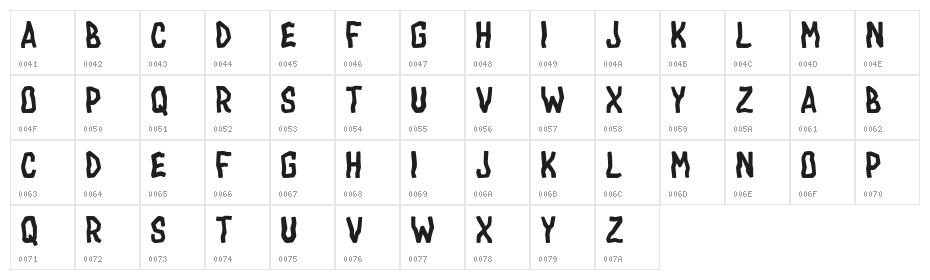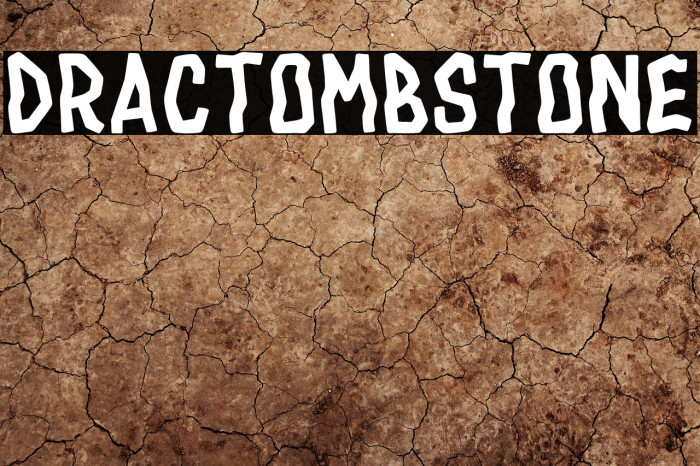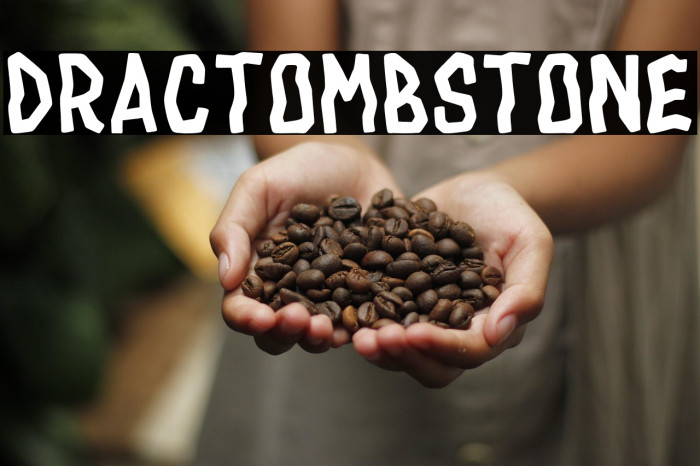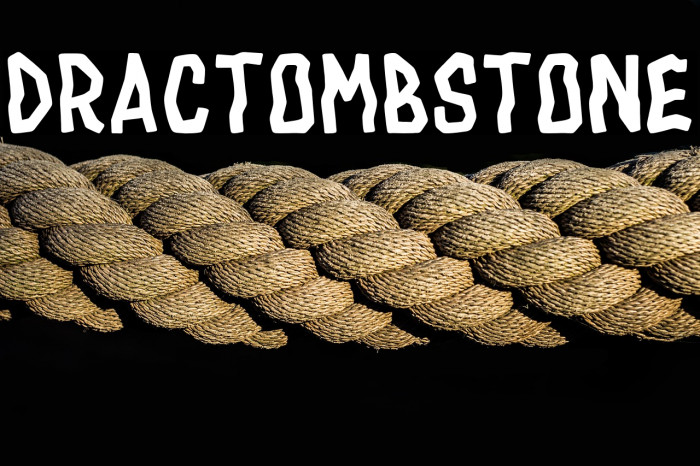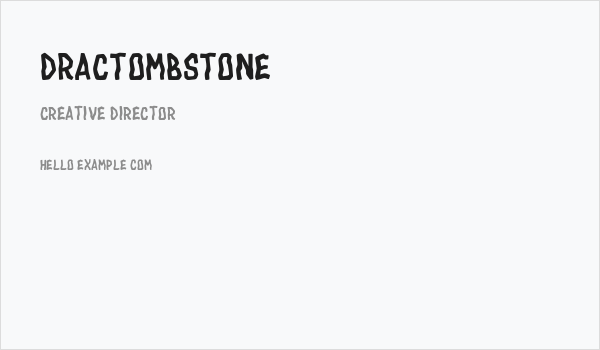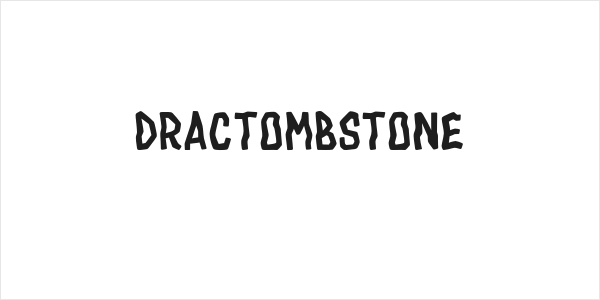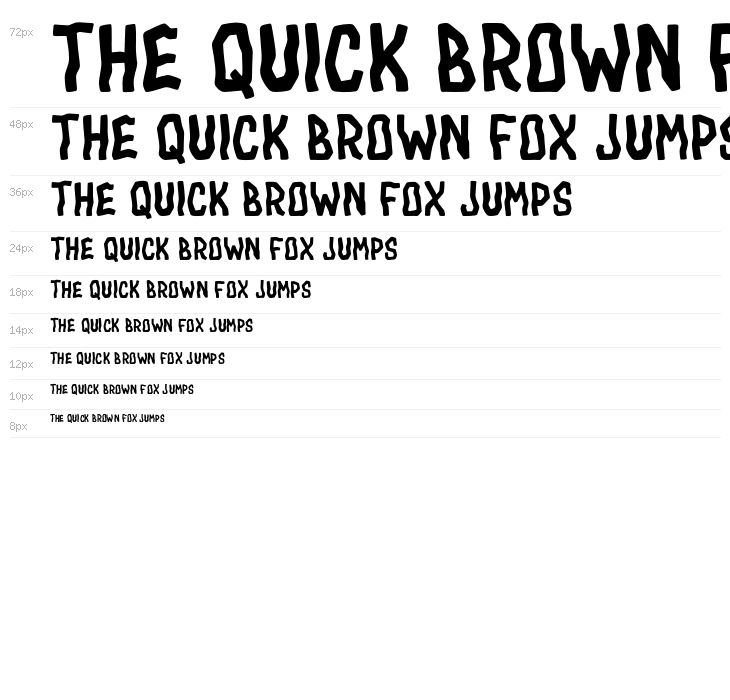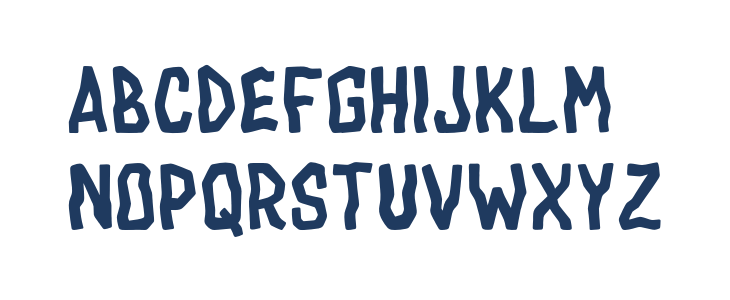
DracTombstone Font
DracTombstone Description
This font features a bold and rugged design, reminiscent of hand-carved letters on ancient tombstones. The characters have an uneven, slightly jagged appearance, giving them a unique and eerie aesthetic. The strokes are thick and irregular, contributing to a sense of mystery and antiquity. This style is particularly suited for themes that require a gothic or horror element, as it evokes a sense of the macabre and the supernatural. The uppercase letters are distinct and easily recognizable, making them suitable for impactful headlines or titles. The overall design is both decorative and functional, providing a strong visual presence.
| Overall Style | Gothic, Decorative |
| Proposed Projects | Ideal for Halloween-themed designs, horror movie posters, gothic book covers, and spooky event invitations. |